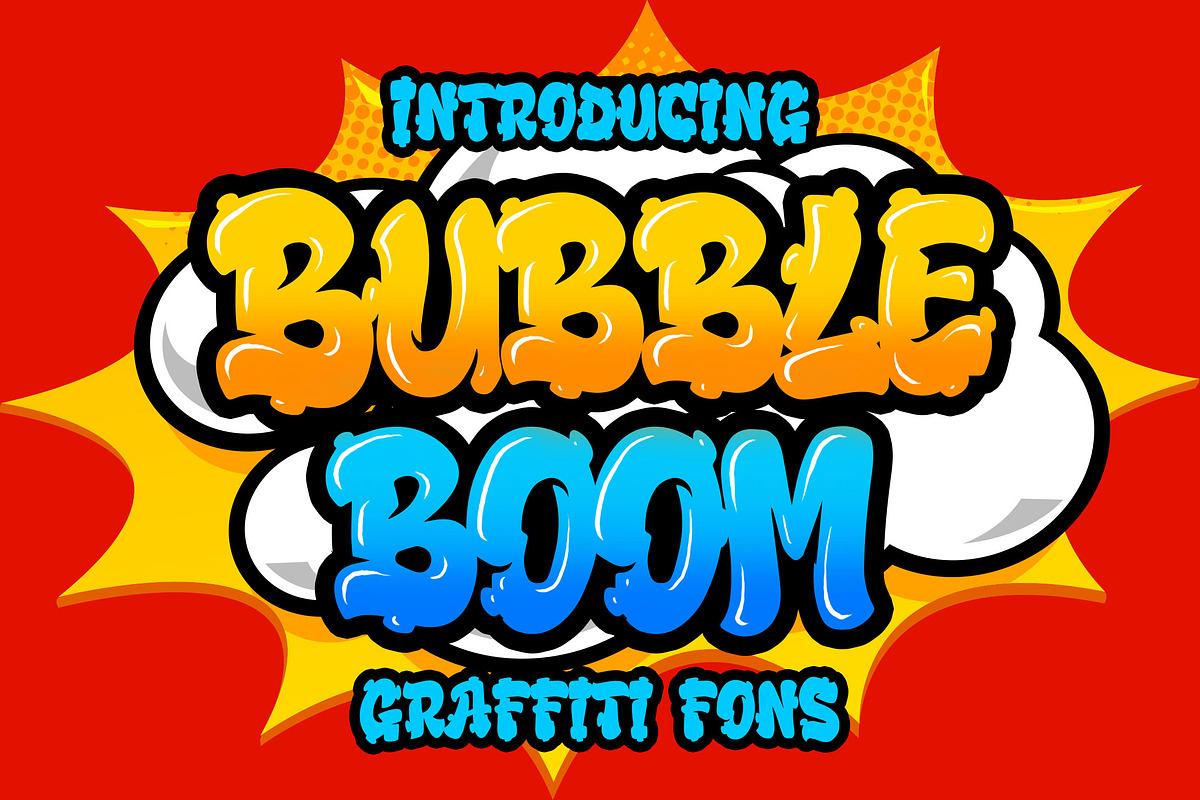
Bubble Boom - Graffiti Font Free Download
Bubble Boom – Graffiti Font Free Download
This font radiates personality and movement, capturing the essence of urban creativity with a lighthearted twist. It typically includes uppercase letters, numerals, punctuation, and multilingual support—making it versatile for a variety of projects.
Whether you're designing for street culture, gaming, or pop art-inspired visuals, Bubble Boom brings fun, bounce, and bold expression to your typography.
Download Bubble Boom – Graffiti Font today and infuse your designs with colorful street flair and bubbly attitude.